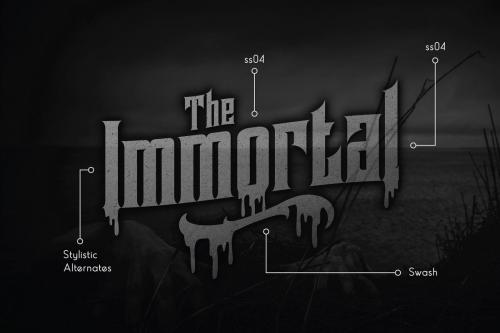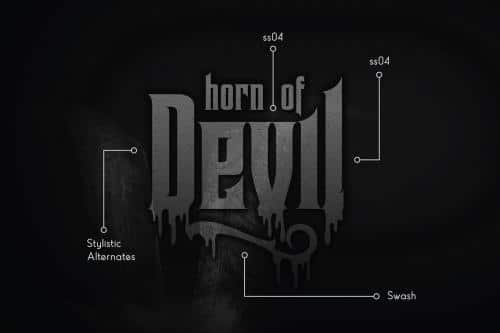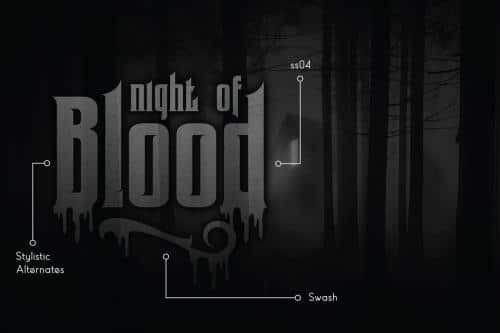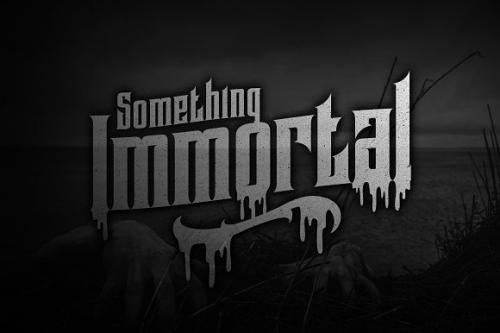
Coovico is a typeface inspired from horror style and blood accent.
The Coovico typeface includes a full set of uppercase and lowercase letters as well as multi-lingual and currency support, numerals, punctuations, alternates, ligatures and some extra glyphs.